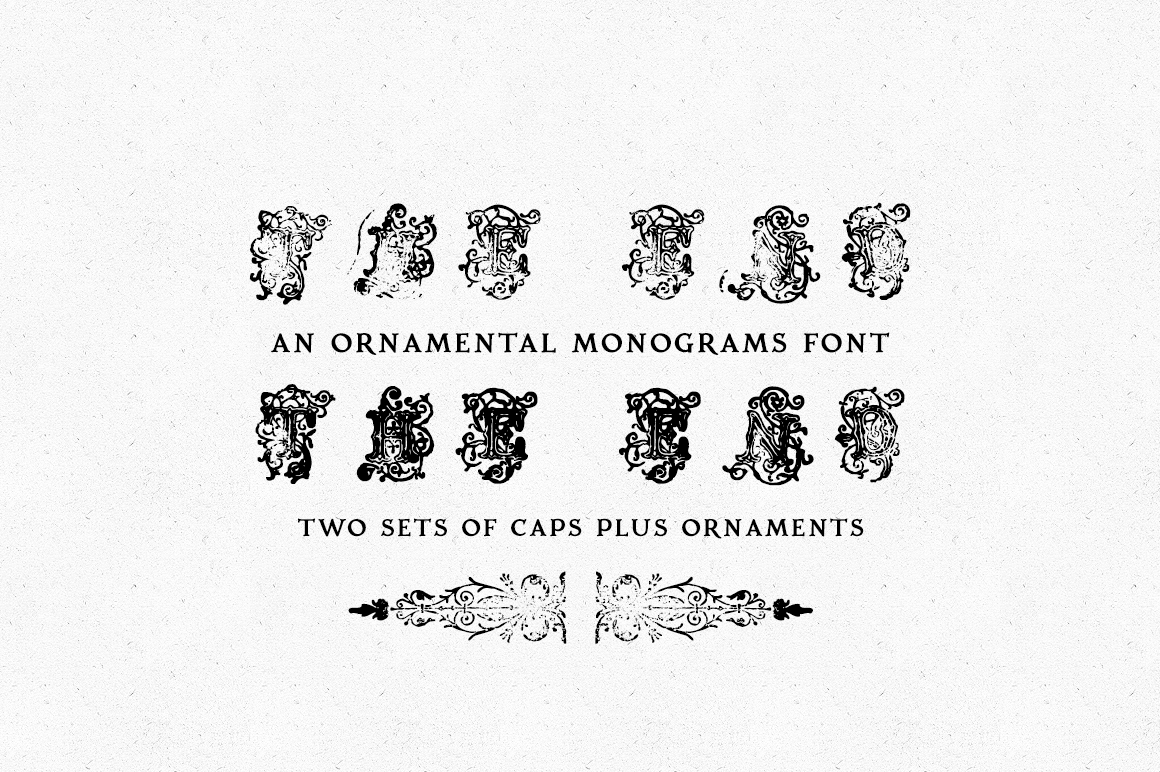
The End is a vintage-looking ornamental monogram font made using real rubber stamps. It is a decorative and unique font perfect for retro designs, such as collages, quotes, logotypes and branding, initials and titles.
Two sets of caps (a-z and A-Z), with varying degrees of inkiness.
A set of ornaments to decorate your designs.
The End ornate monogram font